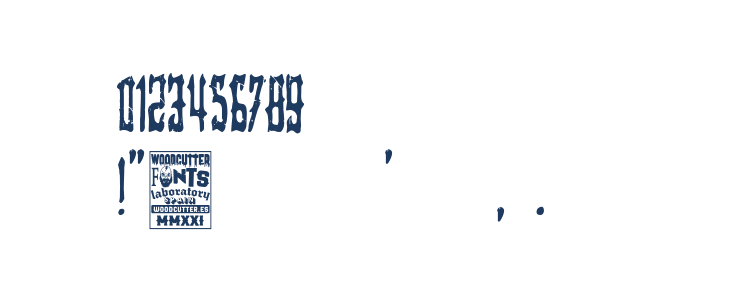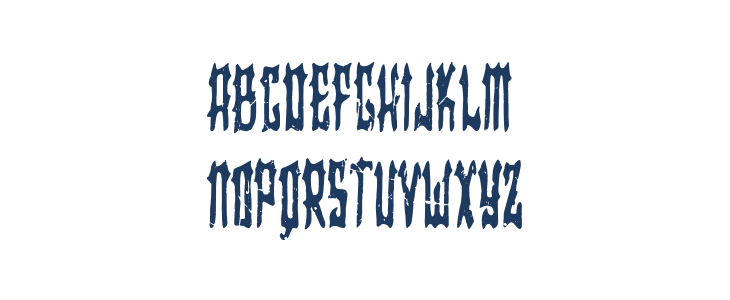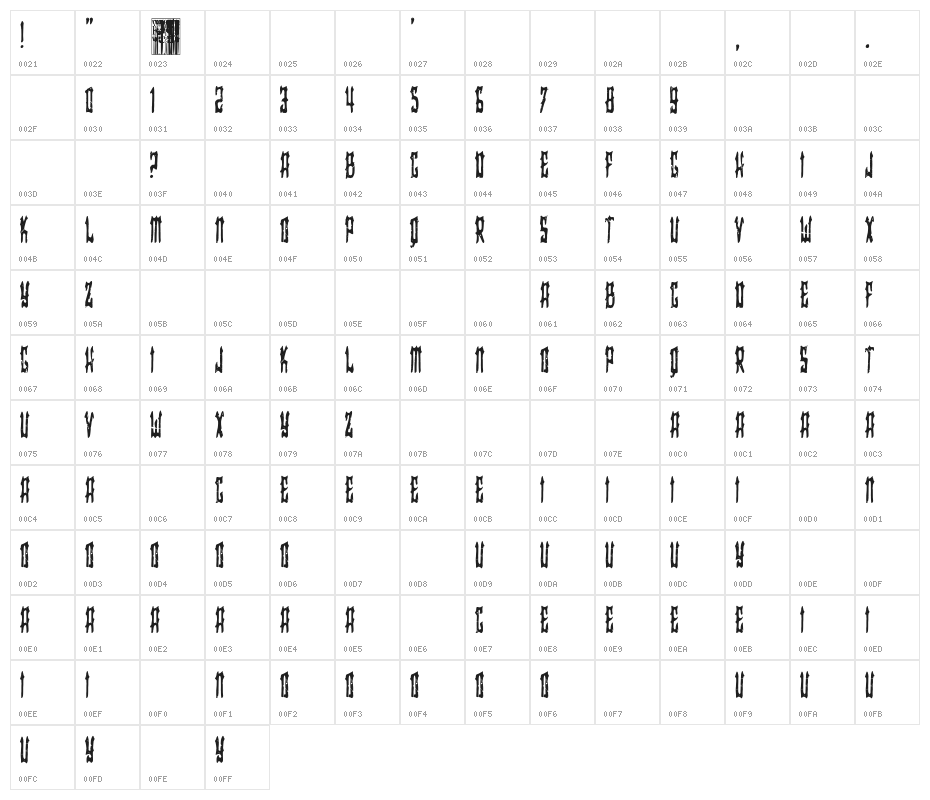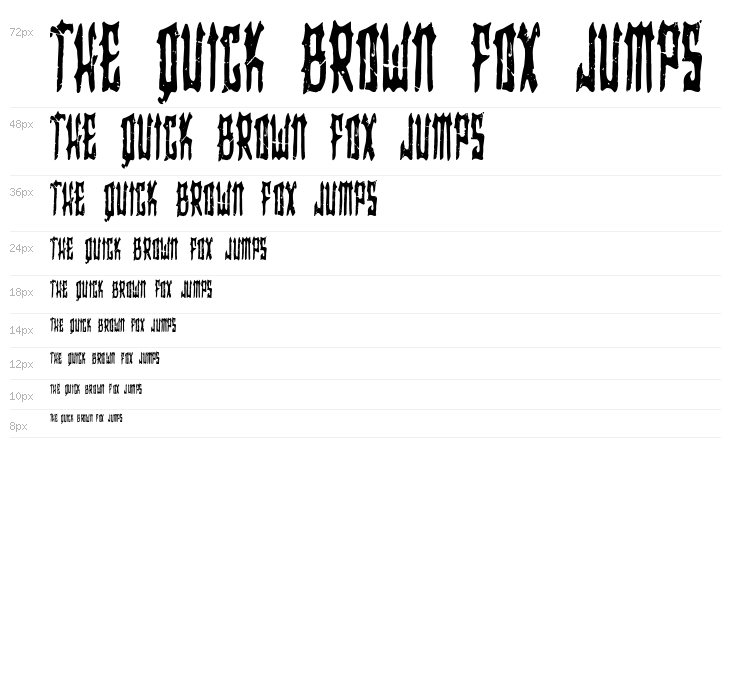
Samurai Team Font
Samurai Team Description
A bold, distressed display font with sharp, jagged edges and an uneven, brush-stroke appearance, evoking a dramatic and aggressive aesthetic reminiscent of action or martial arts themes.
| Width | Condensed |
| Overall Style | Decorative, Dramatic, Action-inspired |
| Use Case | Headlines, Posters, Logos |
| Proposed Projects | Movie posters, video game titles, event flyers, branding for action or martial arts themes, Halloween graphics. |